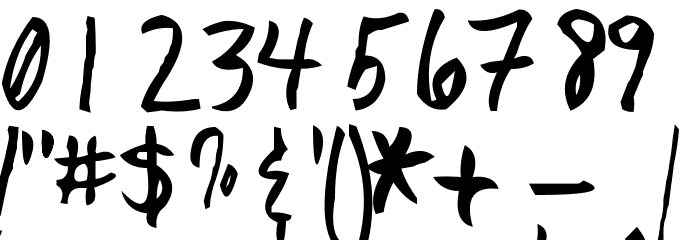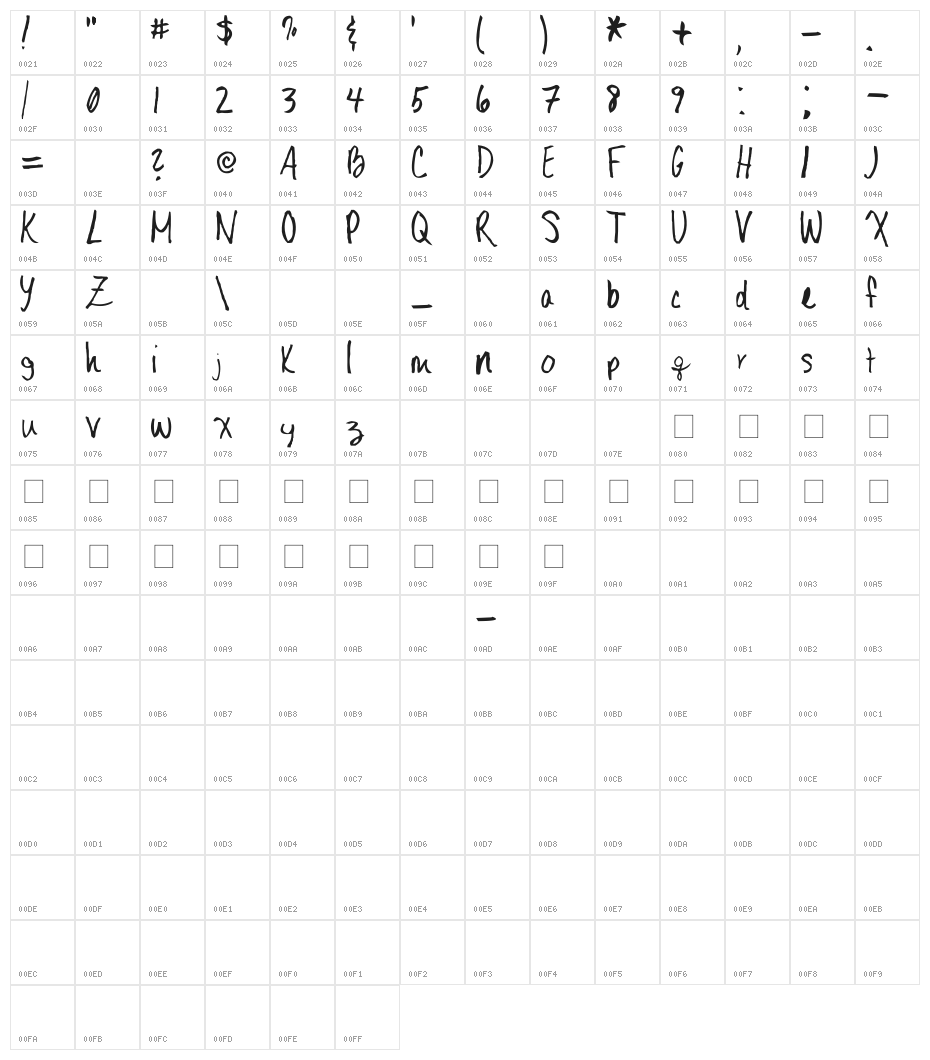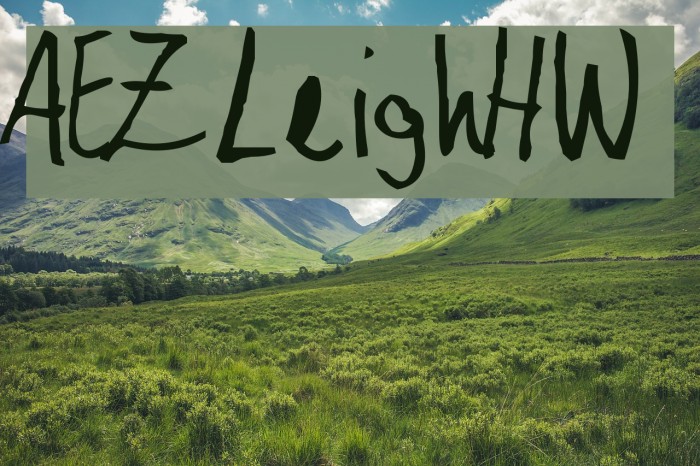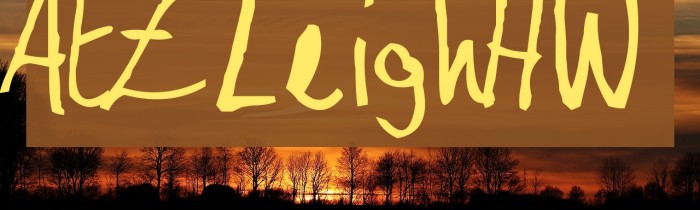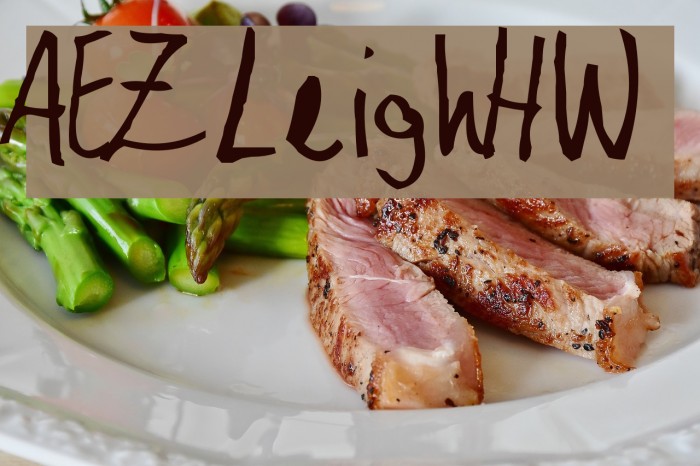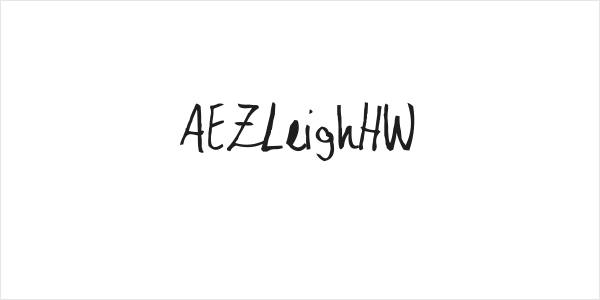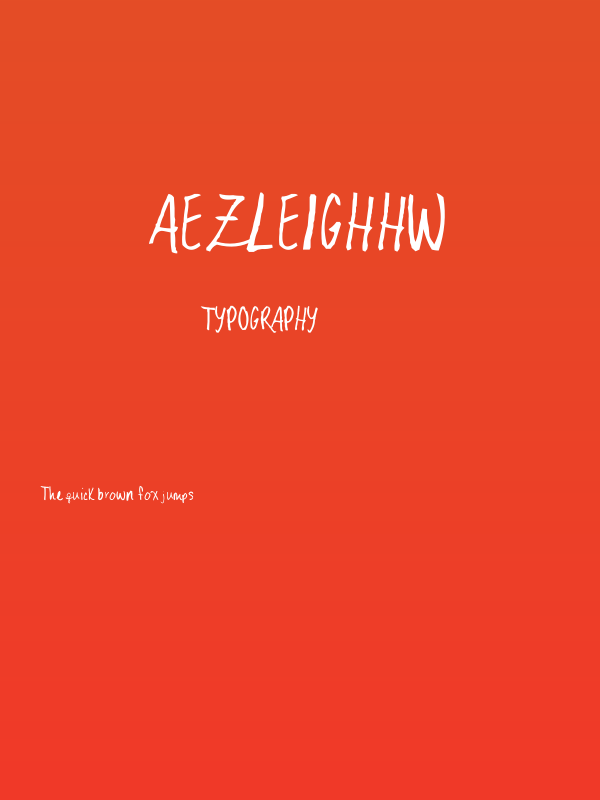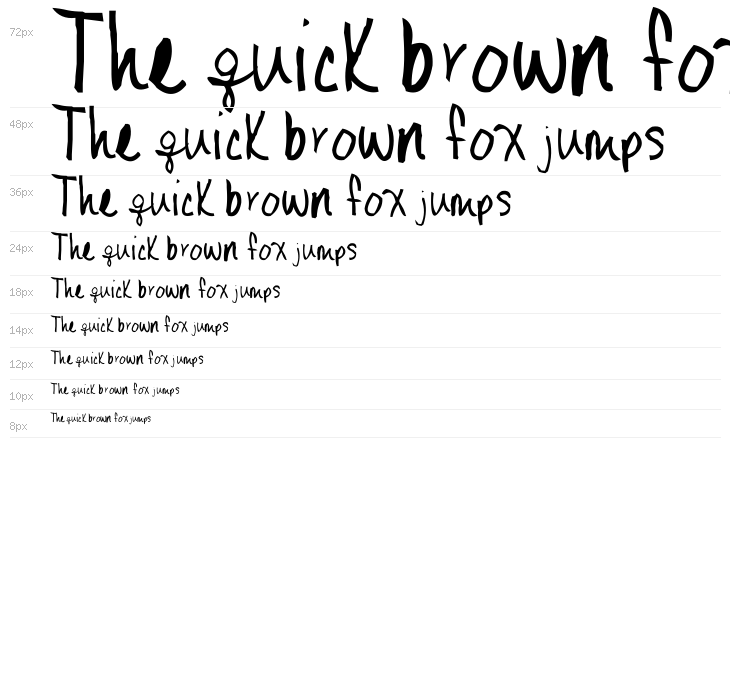
AEZLeighHW Font
AEZLeighHW Description
This font features a dynamic and expressive handwritten style, characterized by its bold and irregular strokes. The letters exhibit a casual and spontaneous appearance, with varying heights and widths that add to its informal charm. The uppercase and lowercase letters maintain a consistent flow, while the numbers and special characters integrate seamlessly with the overall design. The font's playful and artistic nature makes it suitable for projects that require a personal touch or a creative flair.